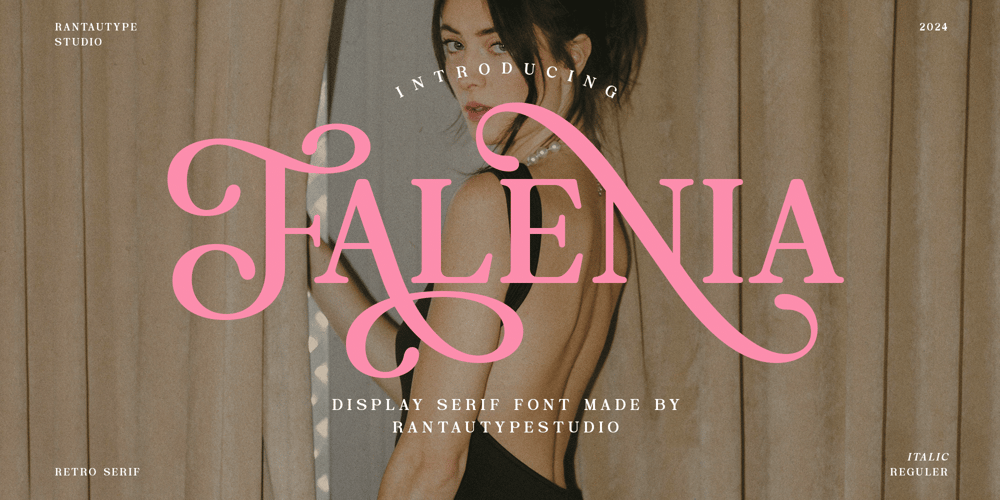
Falenia Font Family was designed by Yudi Pratama Chandra and published by RantauType. Falenia contains 2 styles and family package options. Falenia is display retro serif font with look nostalgic. Falenia bring back memoriable moment in 60s, 70s, 90s to your design project. Balenia is a perfectly choice for any creative endeavor, chic, lifestyle design such as logos, advertisements, stationery, branding project, display and magazine, invitation, corporate brand, product design, label, business project and many other project with retro touch.What you have: Standart Glyphs Numberial and Functional Ligature and alternate Works on PC & Mac Simple installations Accessible in Adobe Illustrator, Adobe Photoshop, Adobe InDesign, even work on Microsoft Word. Fonts include multilingual support for: Afrikaans, Albanian, Basque, Bemba, Bena, Breton, Catalan, Chiga, Cornish, Danish, Dutch, English, Estonian, Filipino, Finnish, French, Galician, German, Icelandic, Indonesian, Irish, Italian, Kinyarwanda, Luxembourgish, North, Norwegian, Portuguese, Romansh, Rombo, Rundi, Scottish, Gaelic, Sena, Shambala, Shona, Soga, Somali, Spanish, Swahili, Swedish, Swiss, German.Thank you for your purchase!Hope you enjoy with our font!